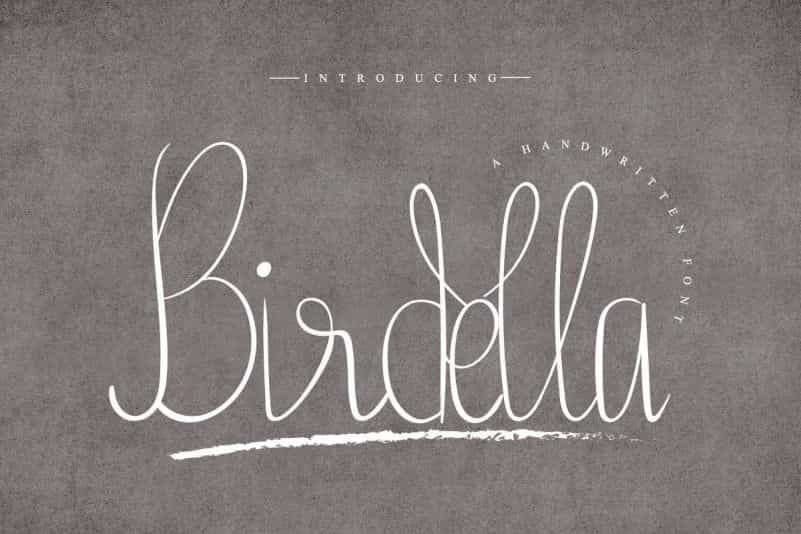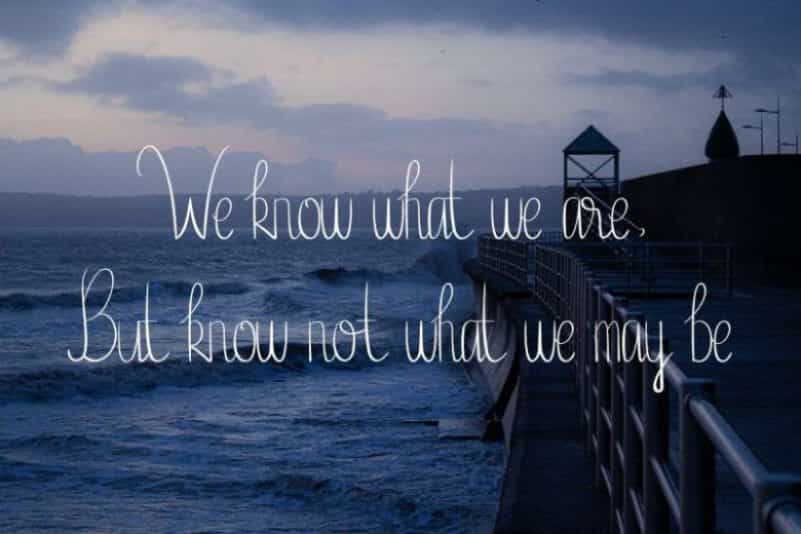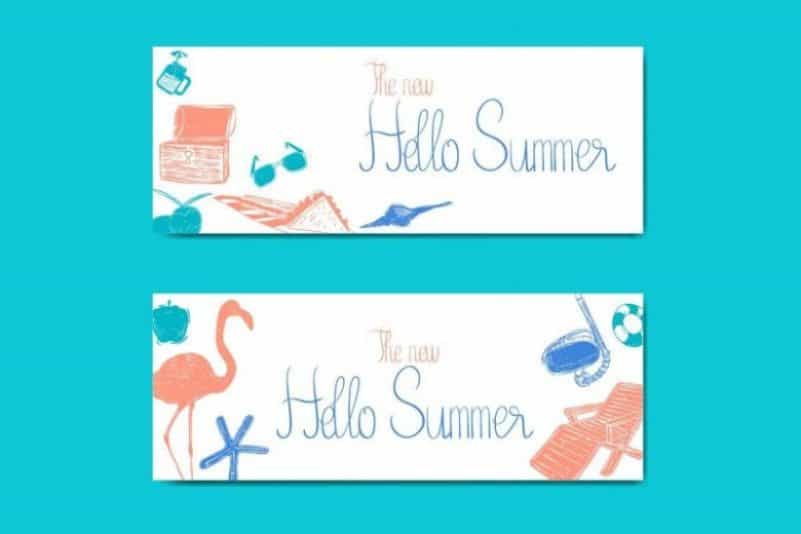
The Birdella Font will be the best accompaniment to help you in your way of becoming yourself. Let the whole world see you and your beauty, let it be seen through your handiwork and give a new perspective to all who will watch. You can fully explore your boldness and reveal the luxurious you with the Birdella Script.